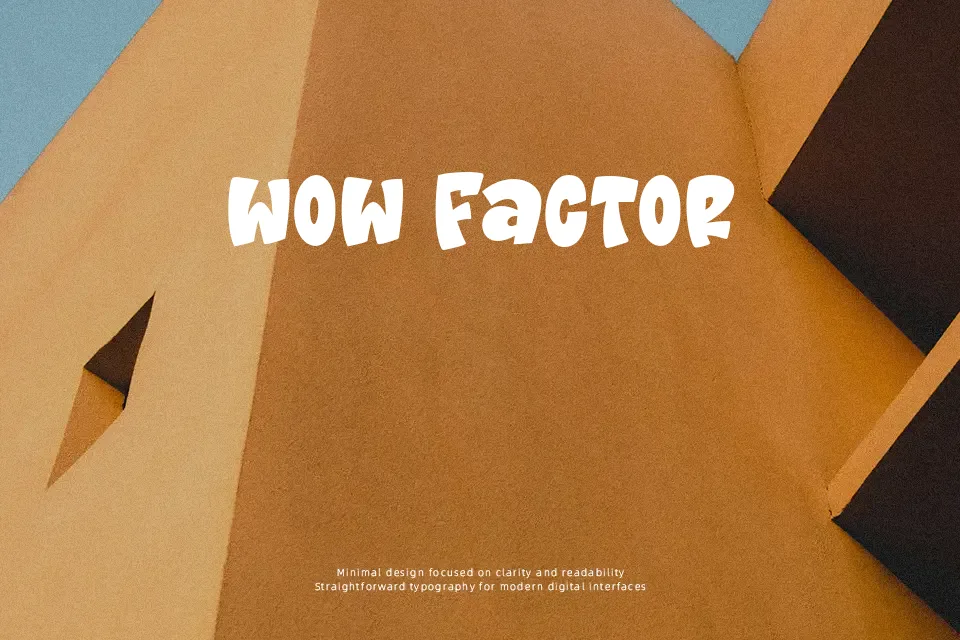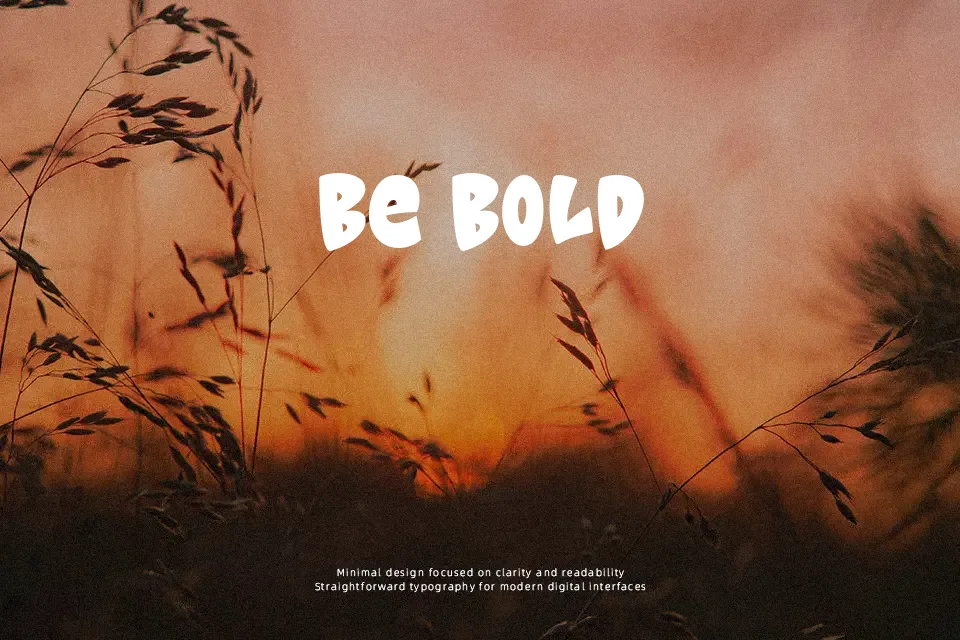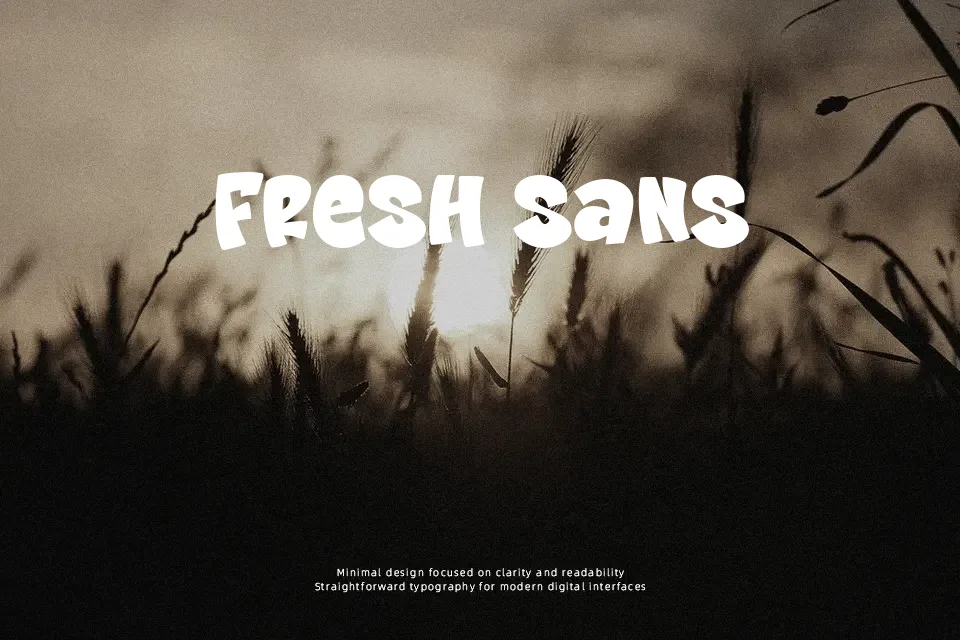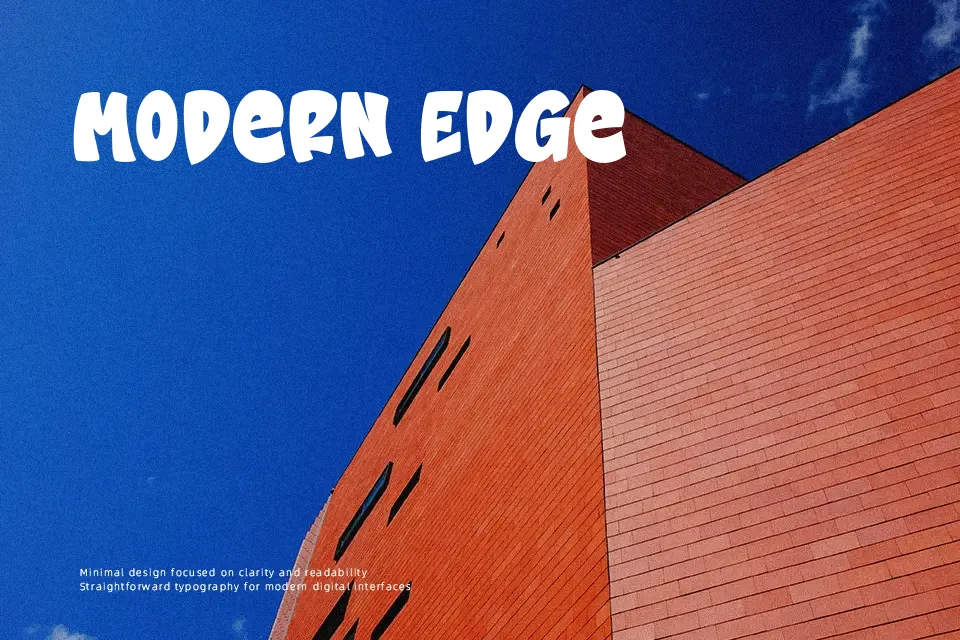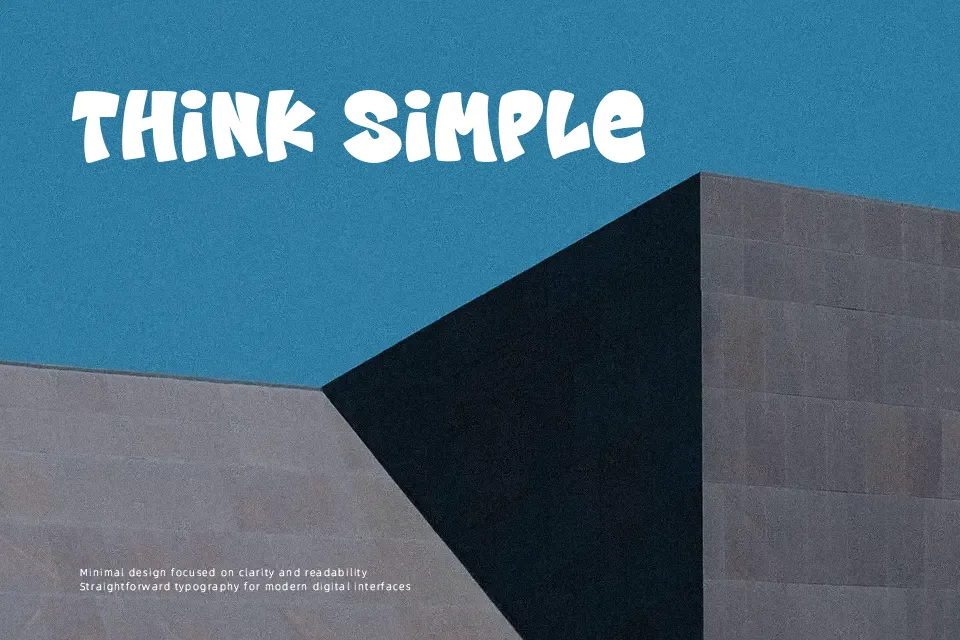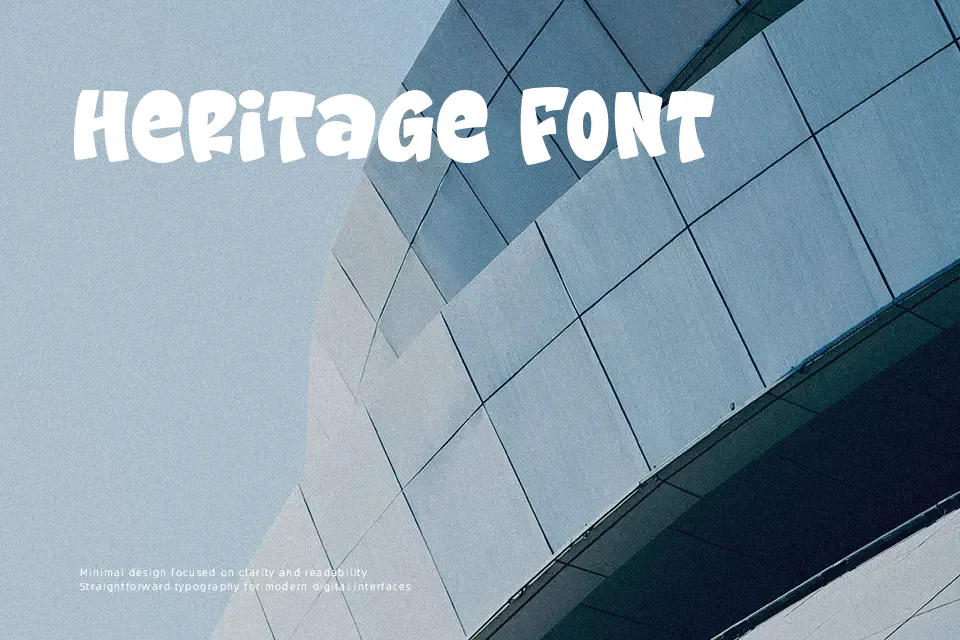
Super Crown Font
Super Crown Font features exaggerated stroke weight paired with rounded outer contours and tight character spacing. The typeface exhibits compact proportions alongside pronounced curves that establish a cheerful, bouncy silhouette across all uppercase glyphs. Thick vertical stems dominate the design, creating high visual impact in amusement park signage, youth apparel graphics, and cartoon title screens. The bold construction preserves character definition in prominent headlines, though dense outlines cause counters to fill in rapidly at smaller text scales. Consequently, the letterforms remain unsuited for multi-line body paragraphs or compact digital user interfaces where continuous reading clarity is essential.
Best For: toy packaging,children’s book covers,arcade game branding,animation title cards
Not Ideal For: continuous body text,mobile interface labels,technical documentation,legal agreements